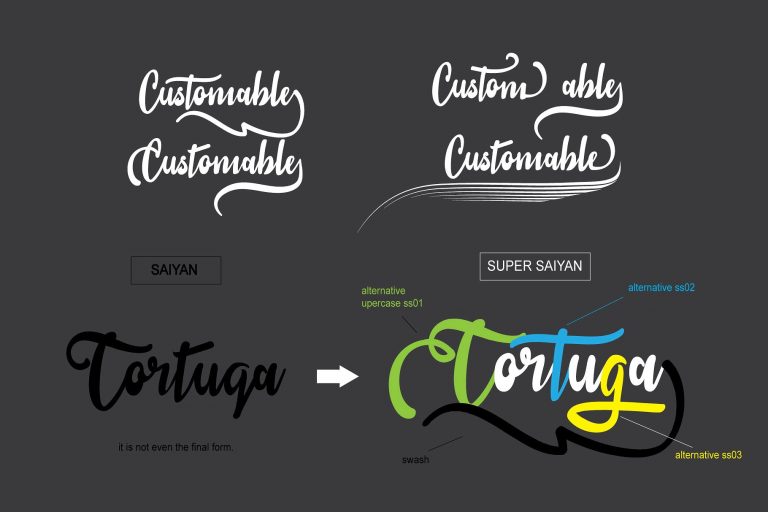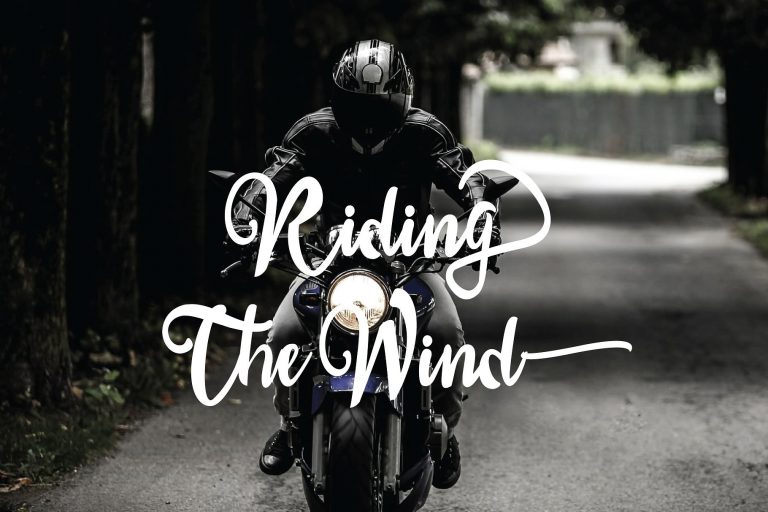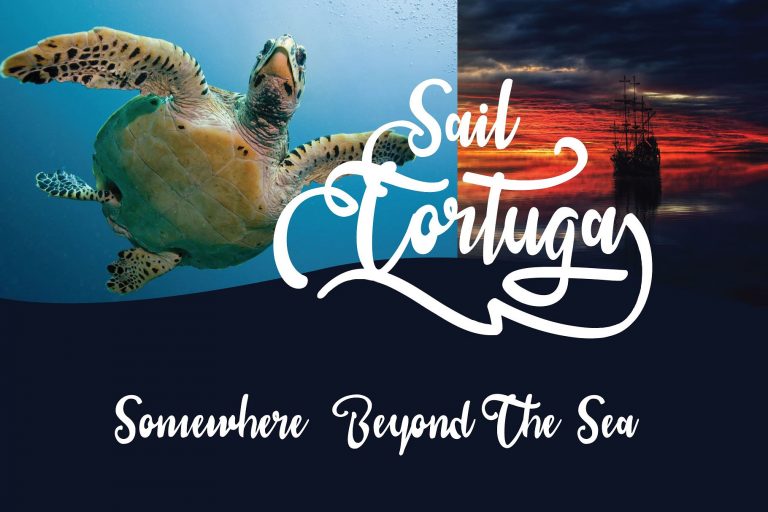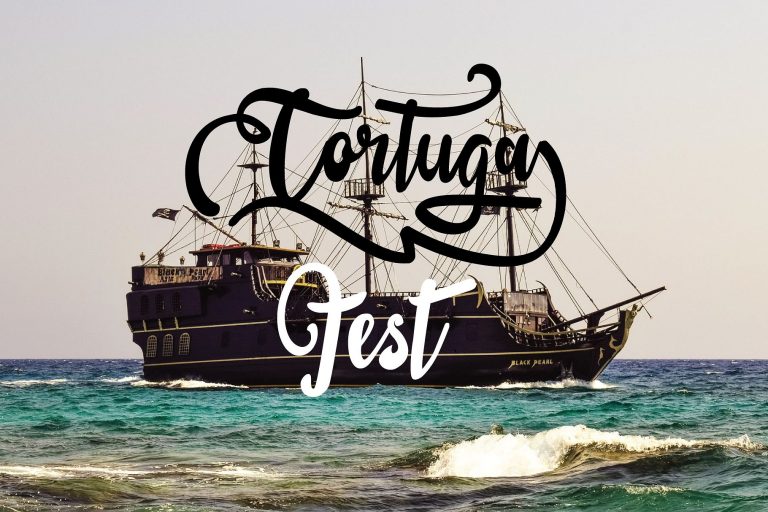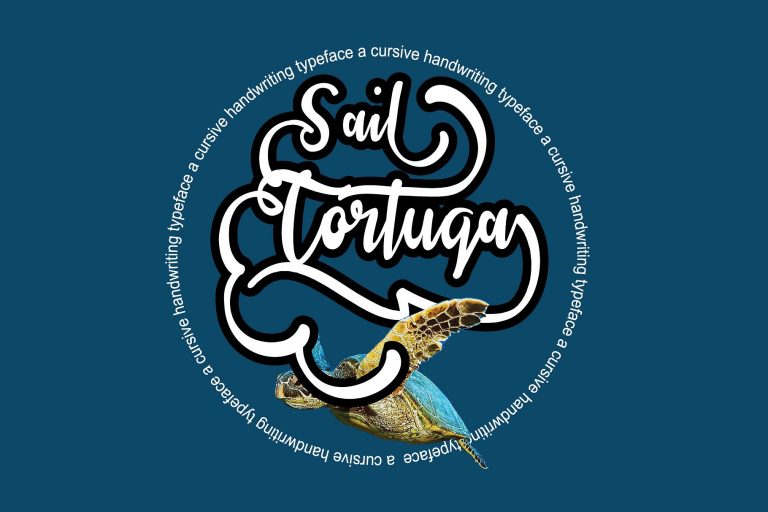
Sail Tortuga Script Font
Sail Tortuga – is cursive handwriting typeface. This typeface includes all uppercase and lowercase letters, numerals, punctuation, symbols, swash, ligature, alternative font, this is perfect for branding projects, homeware designs, product packaging – or simply as a stylish text overlay to any background image